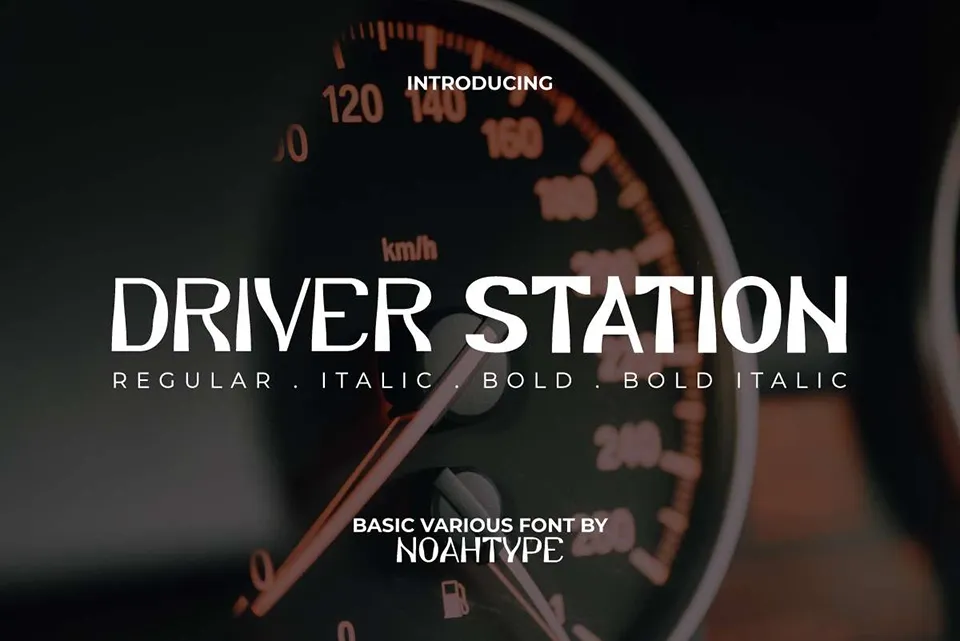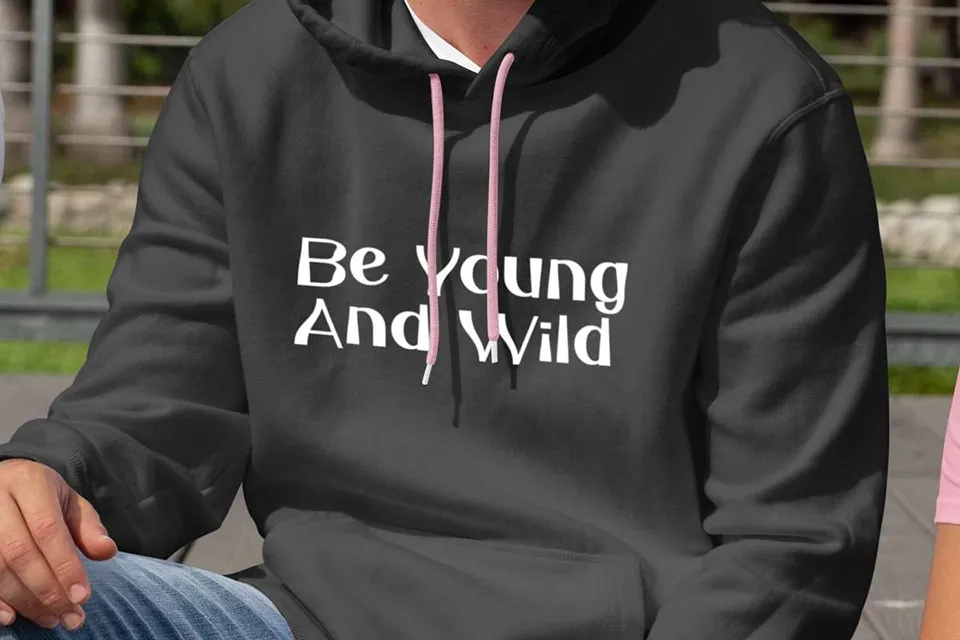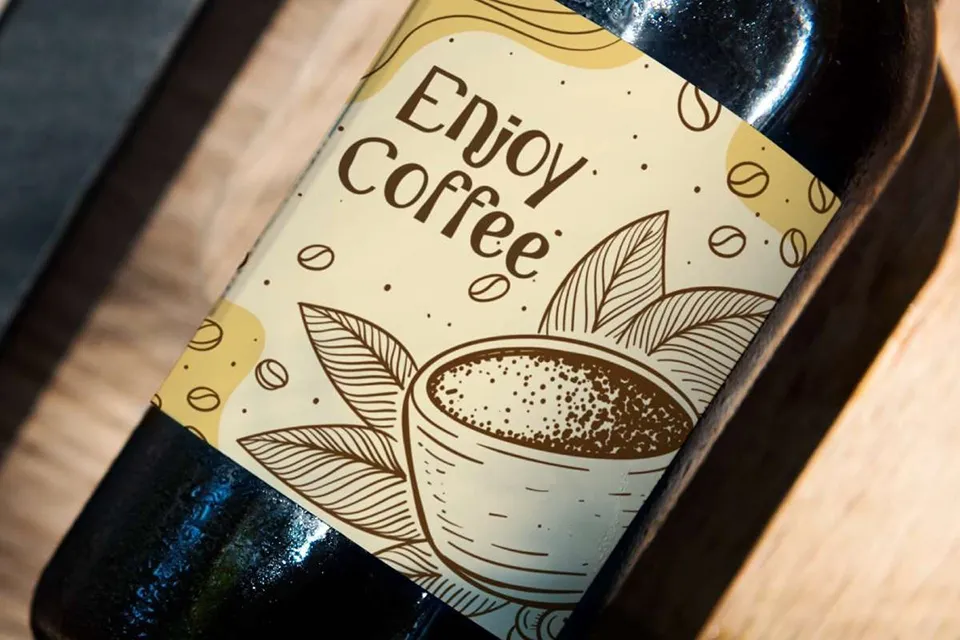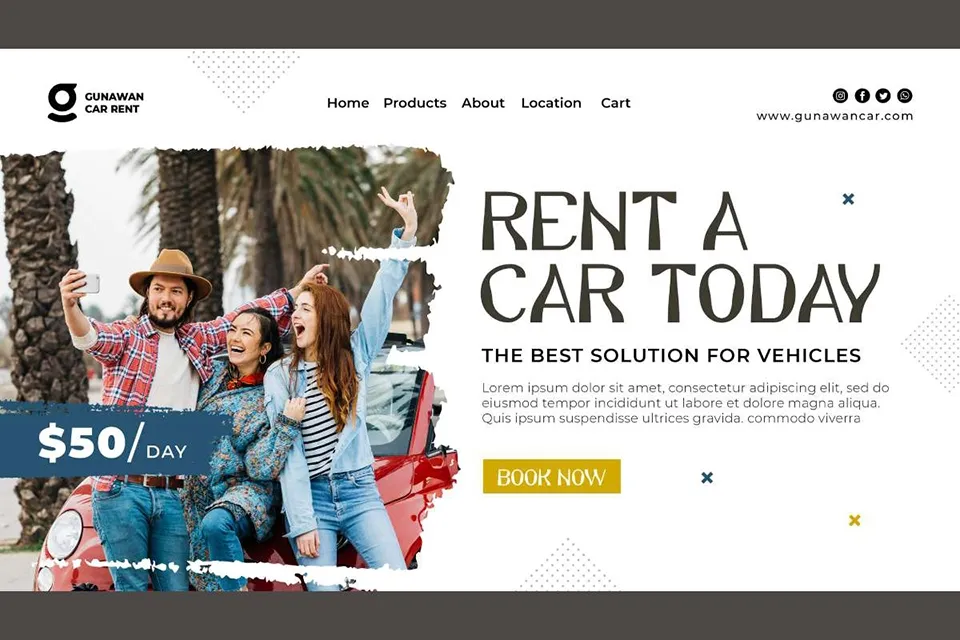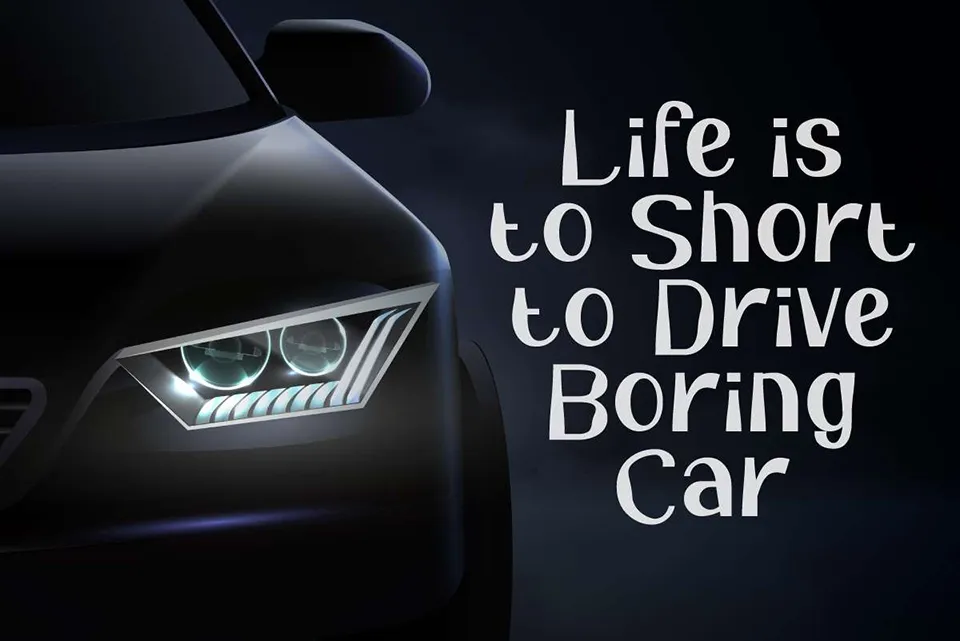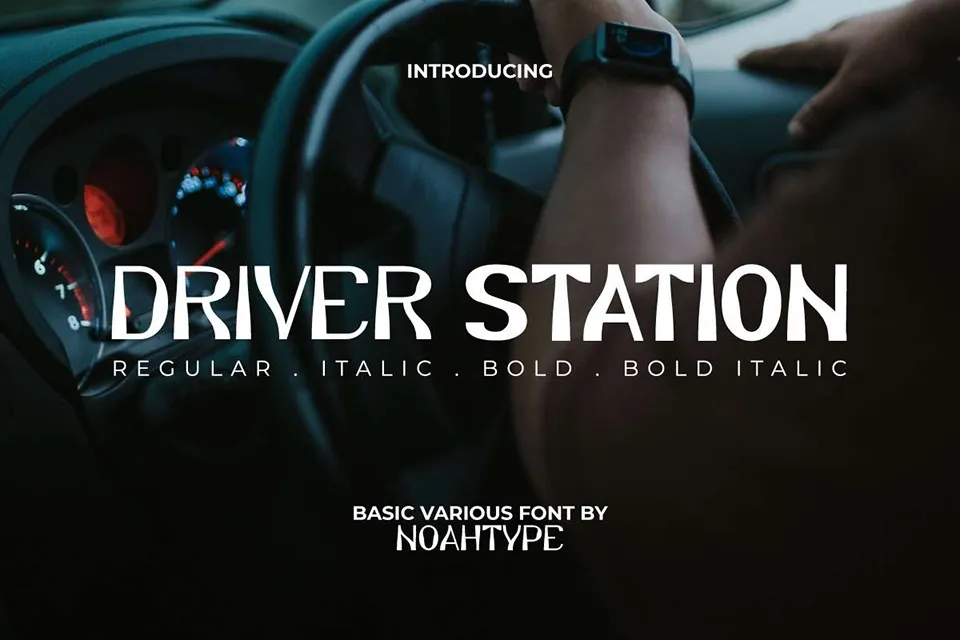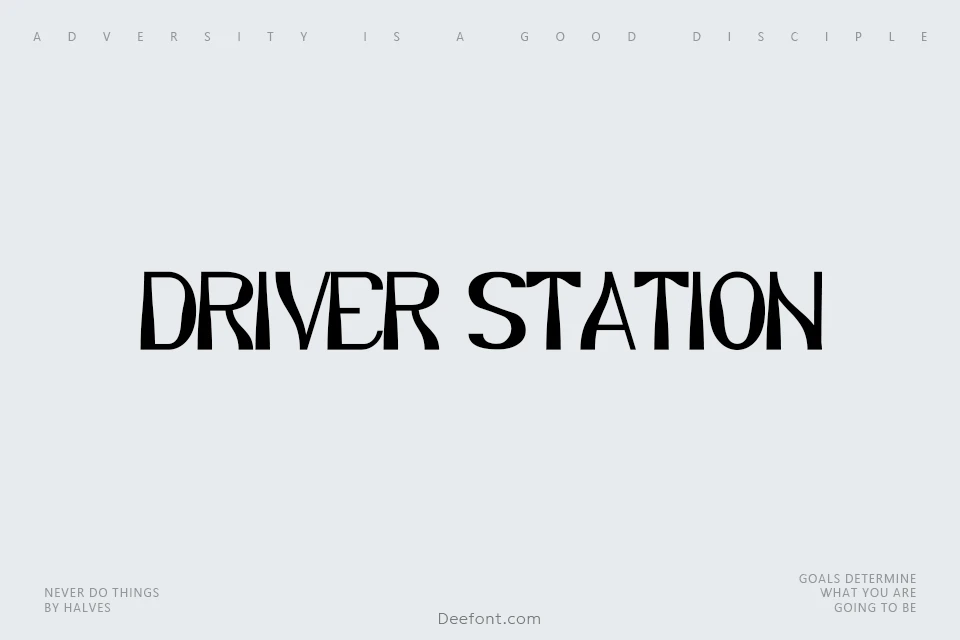
Driver Station Font
Driver Station Font is a bold and dynamic typeface inspired by the energy and precision of automotive design. Featuring four versatile styles—Regular, Italic, Bold, and Bold Italic—this font offers flexibility for a wide range of creative projects. Its unique letterforms combine sharp angles with smooth curves, creating a modern and impactful look that stands out in headlines, posters, branding, and editorial layouts. Designed by NoahType, Driver Station Font captures the spirit of speed and movement, making it perfect for projects that demand attention and a contemporary edge. Its strong presence ensures your message is delivered with confidence and style.